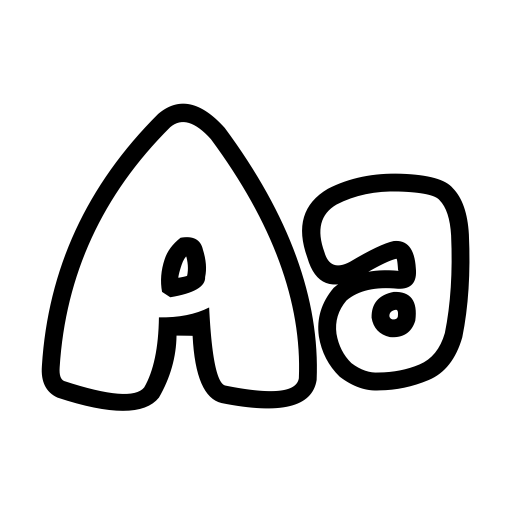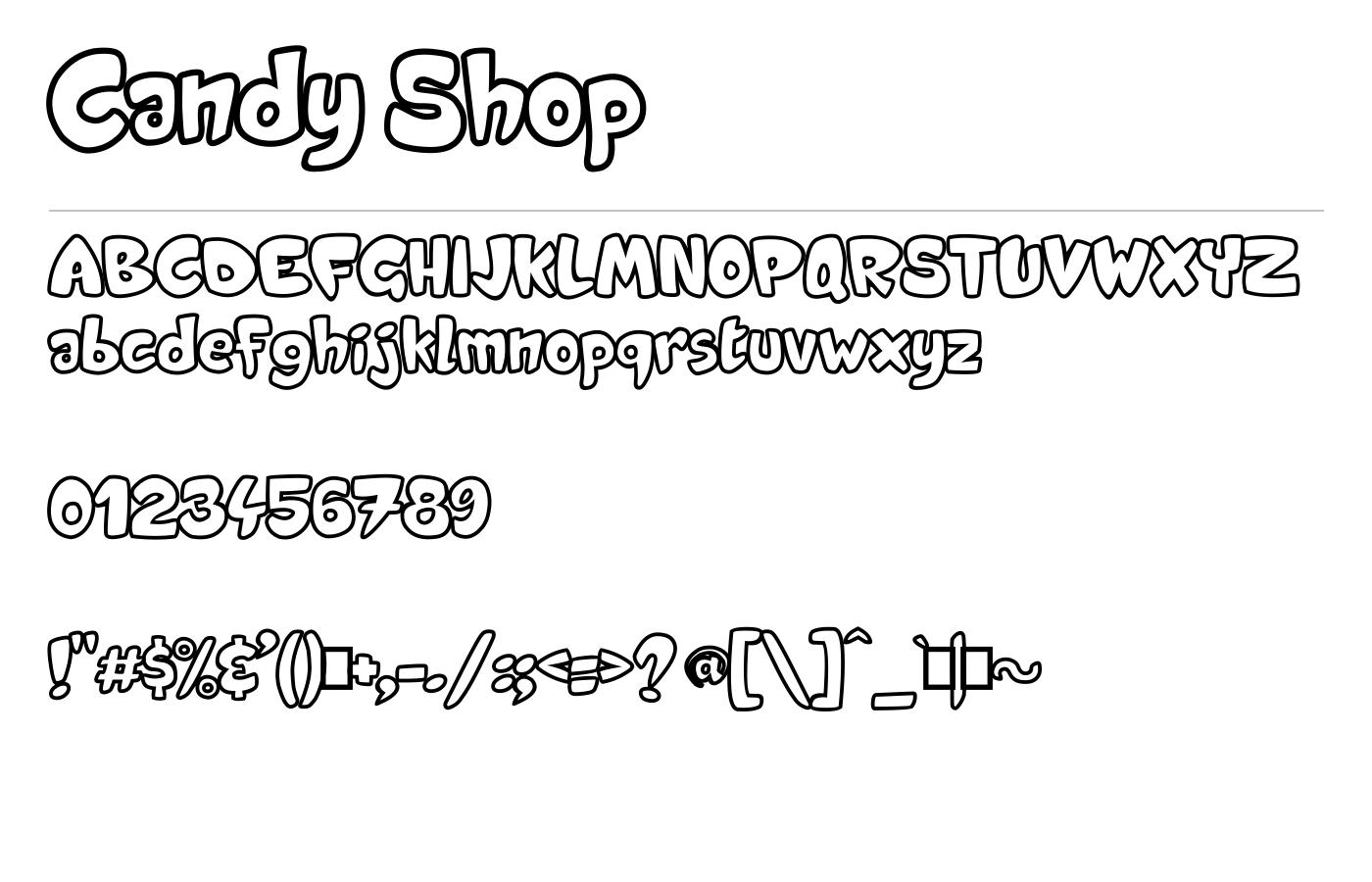
Candy Shop is a playful and bold sans serif font with a hand-drawn, cartoon-like style that makes it feel fun and approachable. Its rounded, slightly irregular letterforms and thick stroke weight create a friendly vibe, ideal for children's products, casual branding, or any design needing a cheerful, whimsical touch. This font works beautifully in headlines, logos, and packaging where a lighthearted, informal tone is desired.
Candy Shop Font
About Candy Shop Font
| Font family | Candy Shop Font |
| Designer | Imagex |